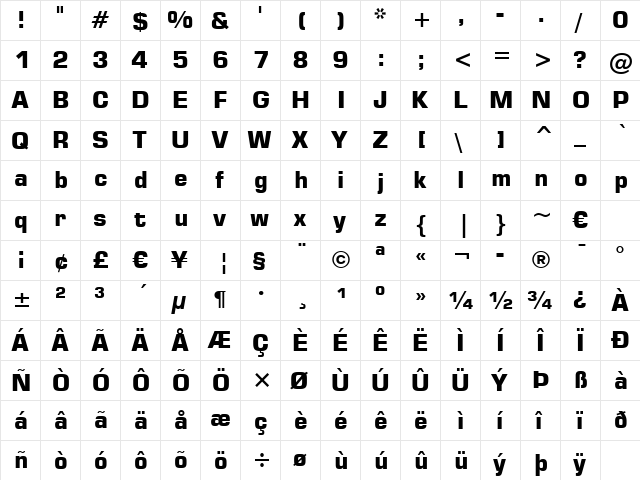
font397 Bold Font Preview
font397 Bold
font397 Bold Font Details
Design Context for font397 Typeface
font397 is a composed and adaptable typeface that performs quietly and consistently across a wide range of design contexts. The heavy weight commands attention and anchors typographic hierarchies.